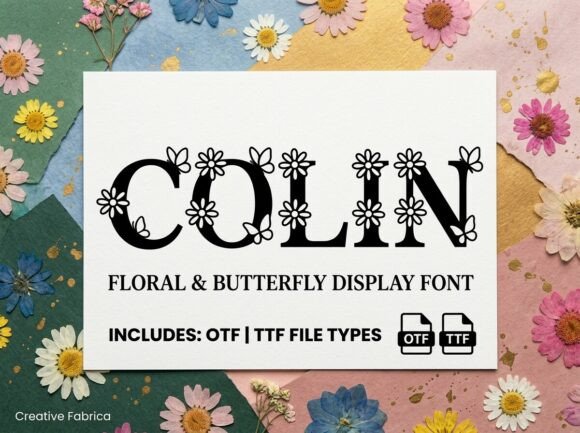
Colin: A Typeface Rooted in Nature's Cheerful Soul
Practical Applications Across Creative Projects
* Branding and Logo Design: Colin is an ideal choice for independent businesses seeking a distinctive brand identity. Imagine it for a local florist, a boutique plant nursery, a sustainable cosmetics line, or a farm-to-table café. It instantly communicates a brand story rooted in nature, care, and vibrancy. * Packaging Design: On product labels, boxes, and bags, Colin can elevate packaging from functional to experiential. Its detailed illustration style adds a premium, artisanal touch to springtime product lines, organic goods, or seasonal gift sets, enhancing shelf appeal and user engagement. * Marketing & Social Media Graphics: For high-impact social media headers, event posters, or digital ads, Colin cuts through the noise. Its bold weight ensures visibility in crowded feeds, while its cheerful motifs create an immediate, positive emotional connection with the audience, boosting shareability and brand recall. * Environmental & Print Design: From community garden signage to menu boards and editorial layouts in lifestyle magazines, Colin brings a cohesive visual language to physical spaces and printed materials. It helps create a welcoming atmosphere that reinforces a brand's core values through every touchpoint.
Tips for Effective Implementation
* Context is Key: Use Colin strategically for headlines, logos, and short, impactful callouts. Its intricate details are designed for large-scale display. Avoid using it for long paragraphs of body copy, where readability could be compromised. * Build a Complementary System: Pair Colin with a clean, neutral sans-serif or a simple serif for supporting text. This creates a strong visual hierarchy, allowing the display font to shine without overwhelming the entire composition. Consider your color palette carefully—soft pastels, earthy tones, or crisp whites often complement its natural aesthetic best. * Ensure Scalability: Always test how the typeface renders at the intended sizes, particularly for digital applications like UI design or web banners. Ensure the charming details remain clear and impactful, not muddy or lost. * Align with Audience Expectations: